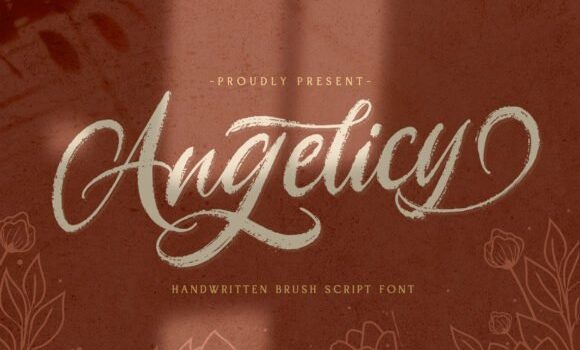
angelicy
Angelicy Font – Free Download Introduction to Angelicy Font Angelicy is a cute handwritten font, created by using a brush pen. 📸 Preview Gallery 6 images 📌 Product Name Angelicy Font 👤 Author StringLabs 📂 Category Explore ⬇️ Download Angelicy